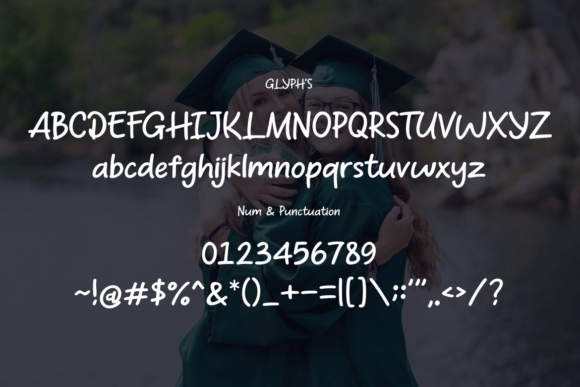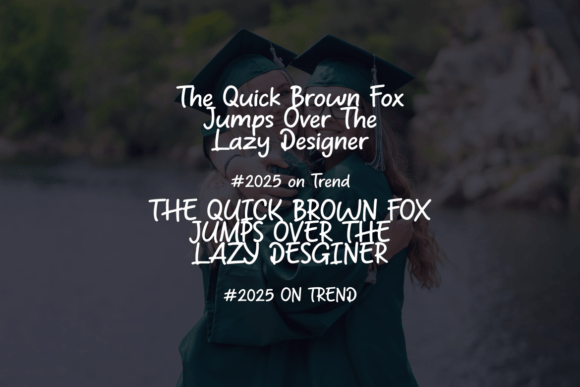
Introduction to Karmila’s Font Font
Fonts play a crucial role in design, and the Karmila’s Font font is a typeface that brings both character and versatility to any project. Whether you’re working on a branding project, a website, or a print design, the Karmila’s Font font offers a unique style that can elevate your work.
Introducing Karmilaβs, a captivating font that brings an extraordinary edge to script writing.
Much like its counterparts in the script font family, Karmilaβs invokes a sense of artistry and sophistication in every stroke It offers a unique allure to any crafted narrative, perfect for creators looking to add an exclusive twist to their script compositions.
Key Features of Karmila’s Font Font
Why Choose Karmila’s Font Font?
The Karmila’s Font font is more than just a typeface β it’s a design tool that helps you communicate your message with style and clarity. Its unique character set and versatile design make it suitable for a wide range of applications, from elegant invitations to bold headlines.
With its carefully crafted letterforms and balanced proportions, the Karmila’s Font font ensures readability and visual appeal across all mediums.
What makes Karmila’s Font font special?
The Karmila’s Font font stands out with its unique design, exceptional readability, and versatility across various design applications.